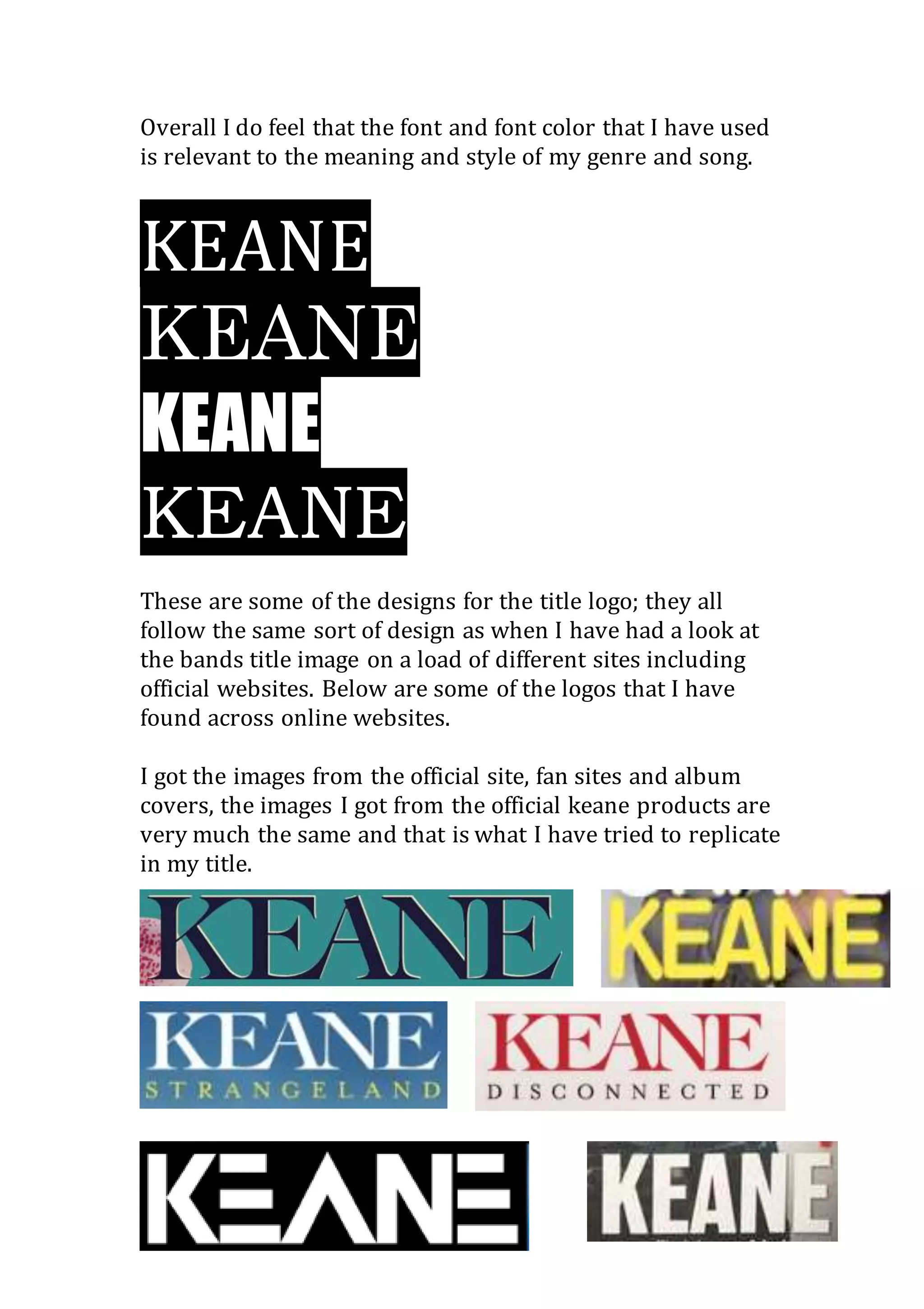
Font Explanation
The font is one of the biggest elements of the presentation of
my research and I recognize the importance of getting the
font right as it advertises and promotes my final products,
planning and construction sections of my project. I needed
to make sure that not just the font fit the theme and style but
also the color of the text.
Very early on in the process I started to research in to how
artists websites and social media pages used the style
though their images, theme/design and text/font.
Obviously during the research stage I did not have a band
name or song as I was researching different videos, as soon
as I found what band and song I was going to go with I
started the font experiment.
The video is about loosing someone that you really care
about this links with key elements in the songs meaning
about rolling fog – that dark times or moments can just come
in (roll in) to your life at any time and that nobody goes
though life always happy and comfortable, that there is
always something around the corner that will effect you. It is
this deep meaning that I would have to try and convey over
in the font. The meaning behind my video is to take that
same story but to show the difference between light and
dark, the digipak and advert includes text in a way that
shows this, the font is very sharp and bold in order to show
the harshness of life and this style of font is something that I
have included in all my final products. In terms of the font
color I have used both orange and blue in order to show
continuity from by video as the orange is suppose to
represent the sun and the blue is there to represent the
water and cold foggy air (both elements are apparent in the
video)
Overall I do feel that the font and font color that I have used
is relevant to the meaning and style of my genre and song.
KEANE
These are some of the designs for the title logo; they all
follow the same sort of design as when I have had a look at
the bands title image on a load of different sites including
official websites. Below are some of the logos that I have
found across online websites.
I got the images from the official site, fan sites and album
covers, the images I got from the official keane products are
very much the same and that is what I have tried to replicate
in my title.